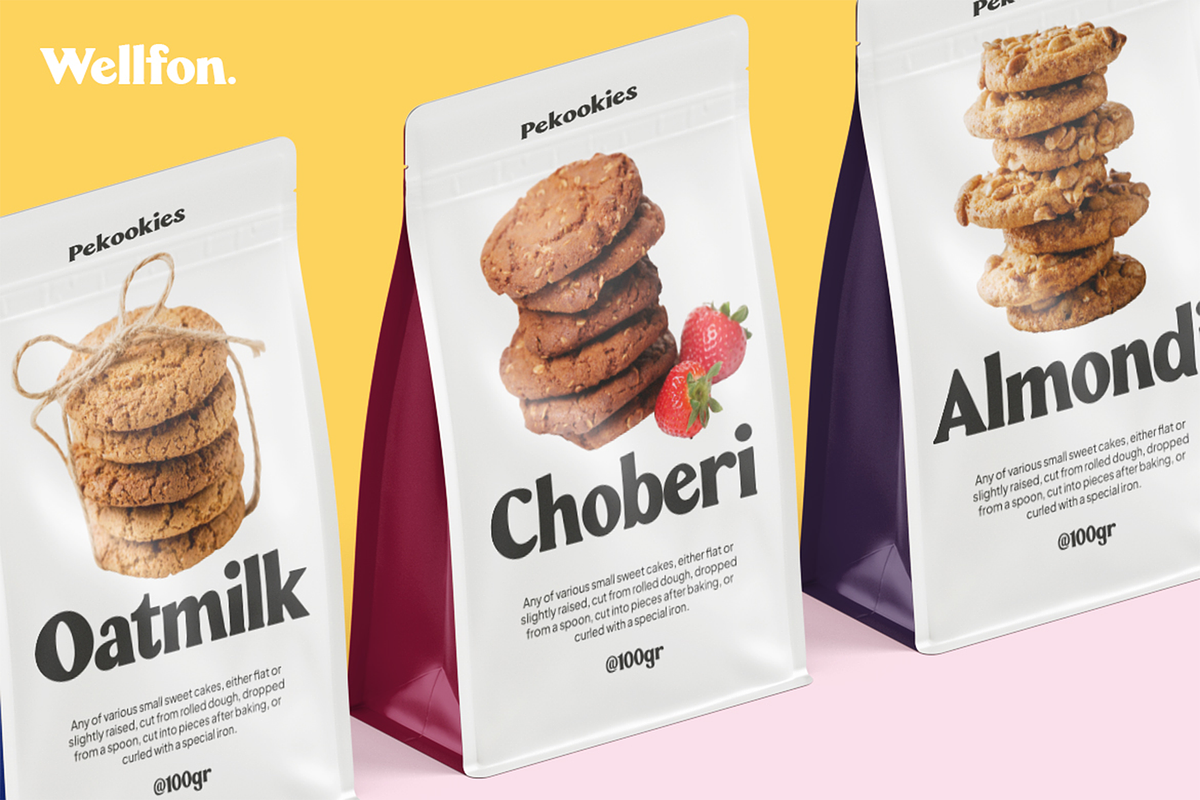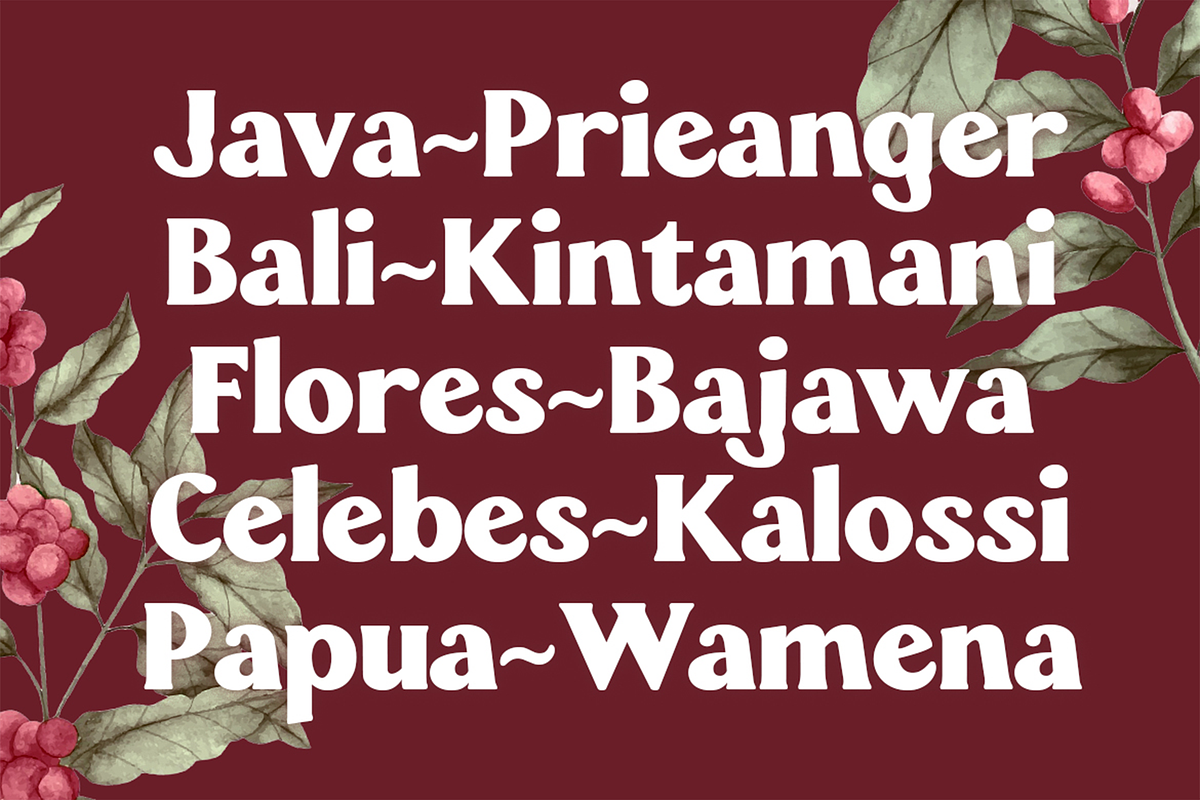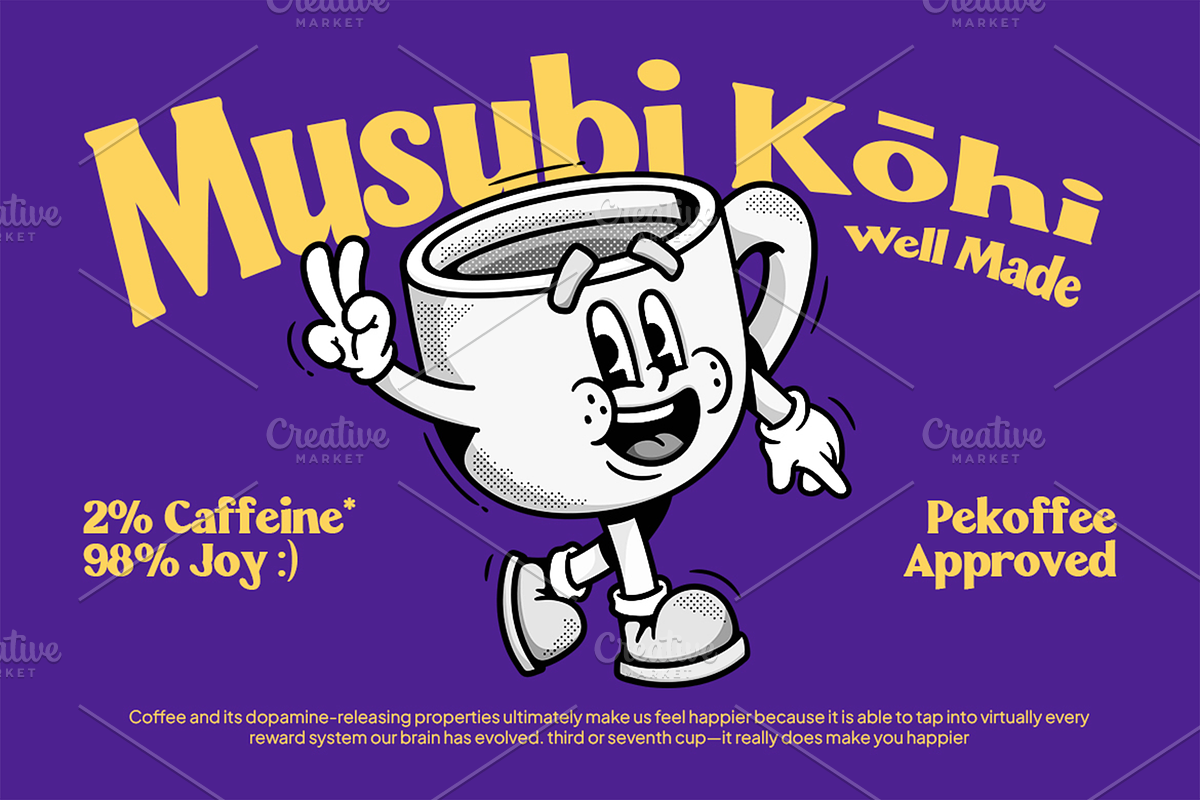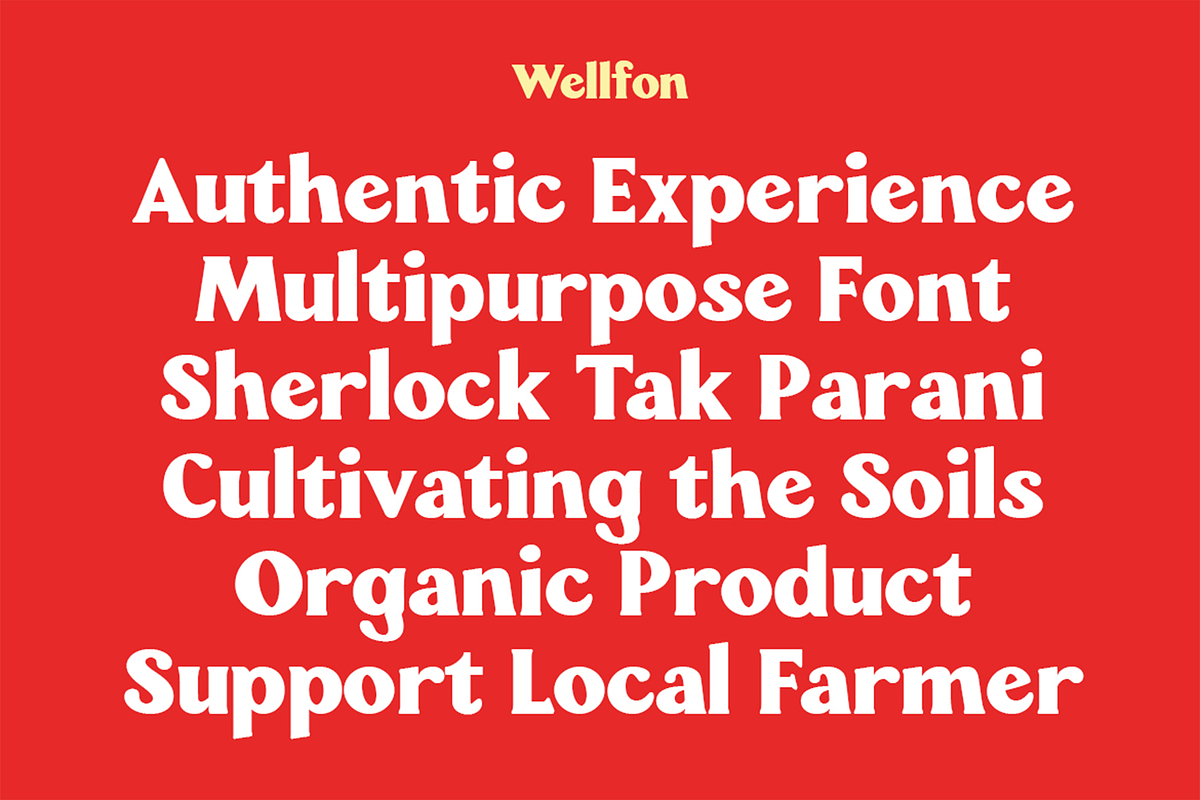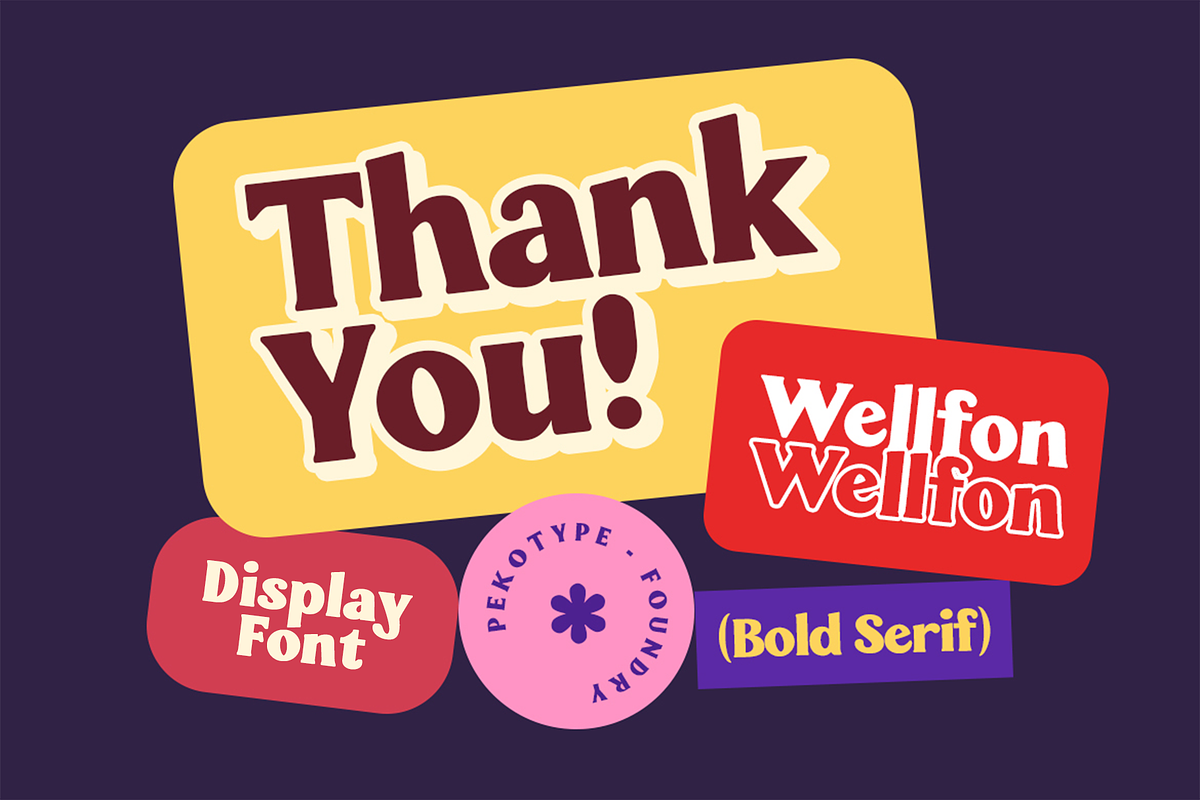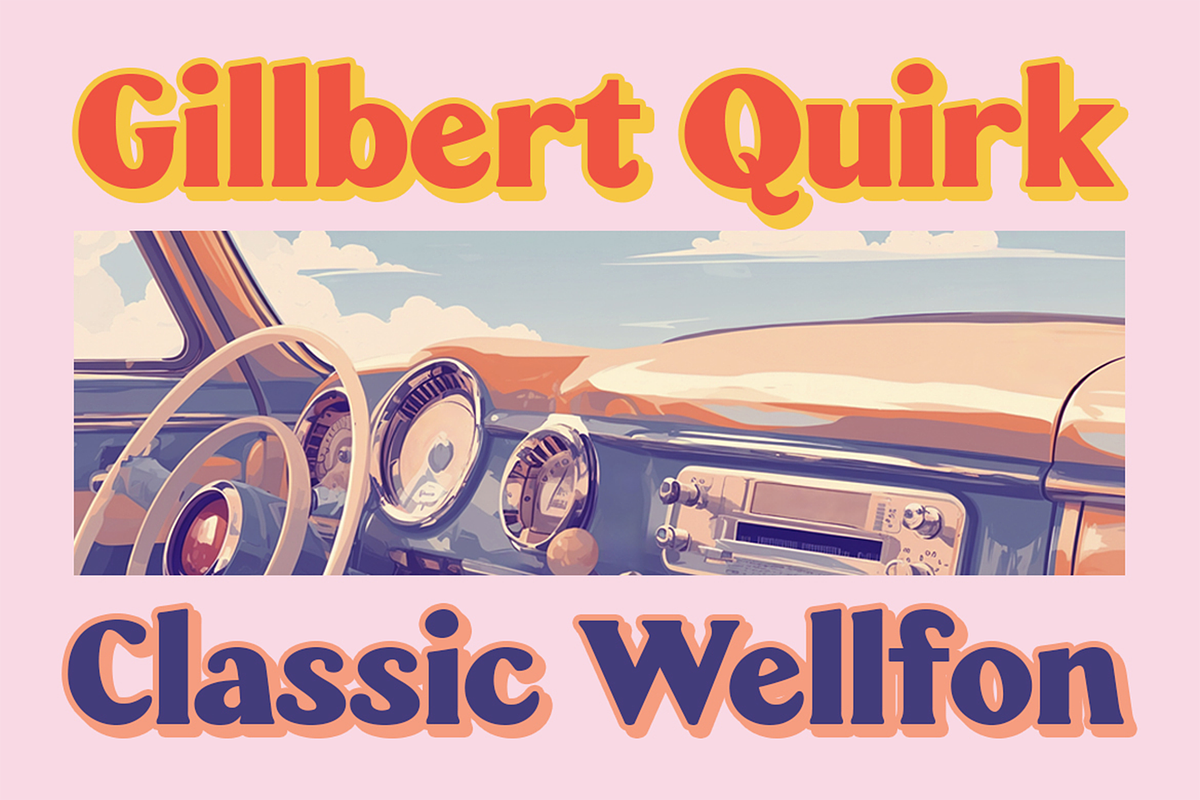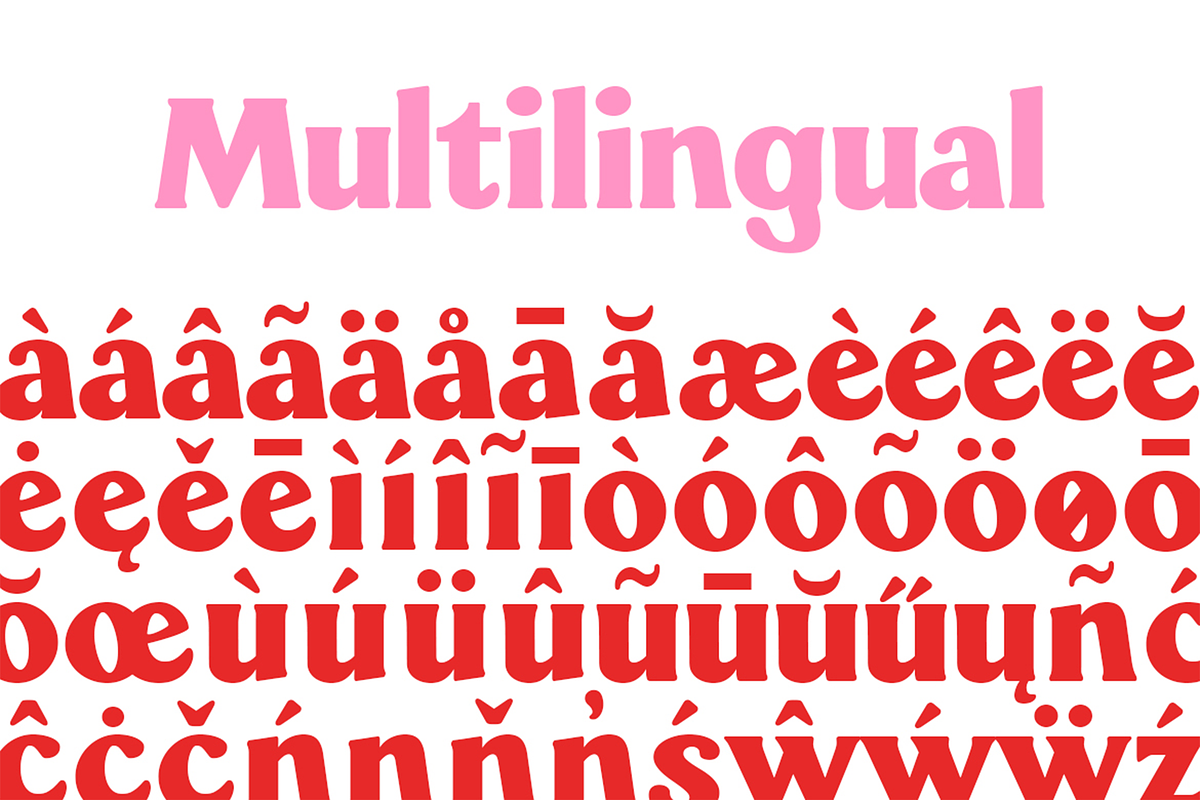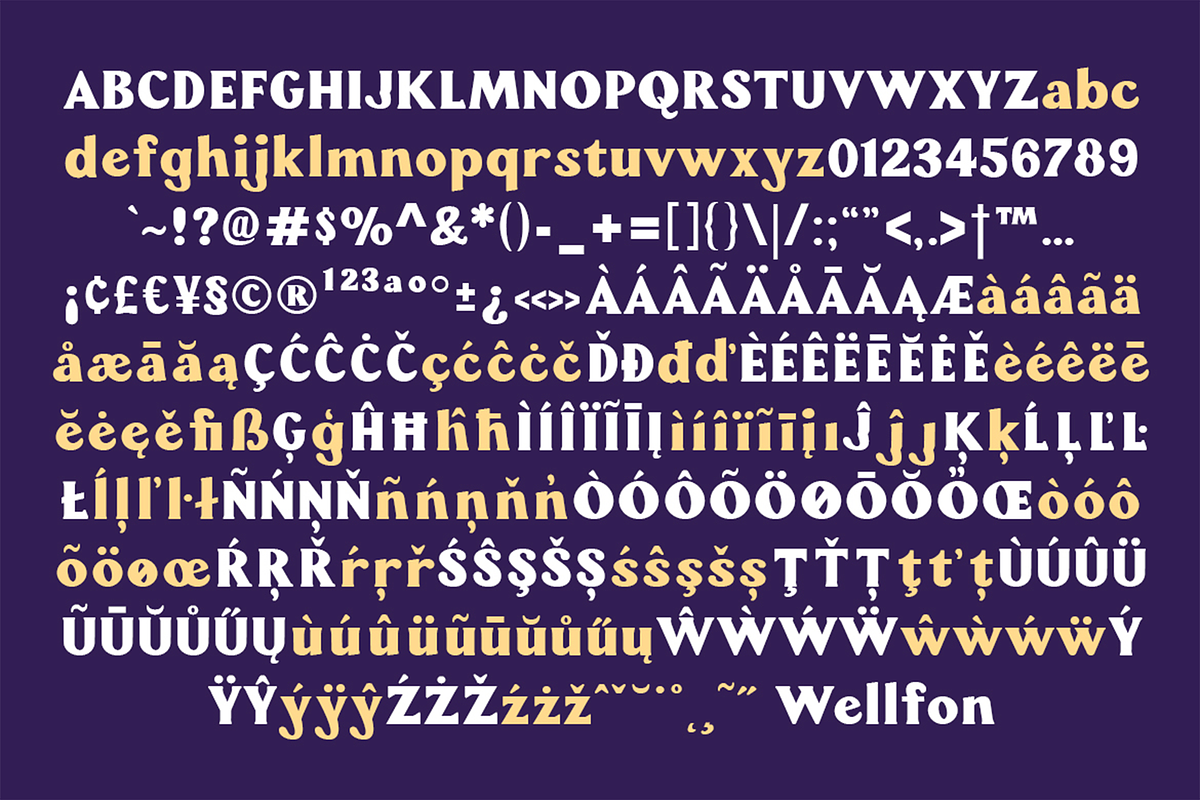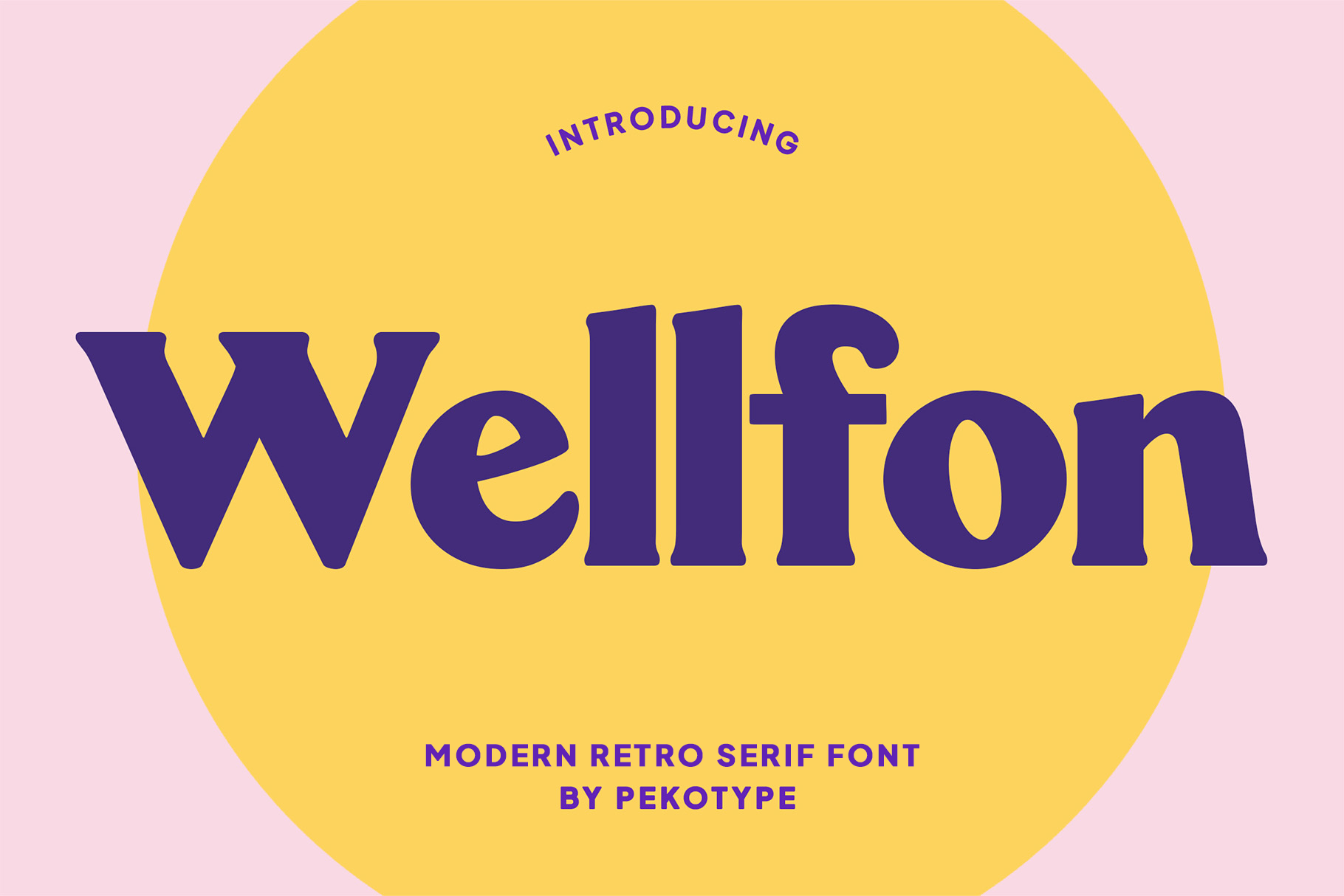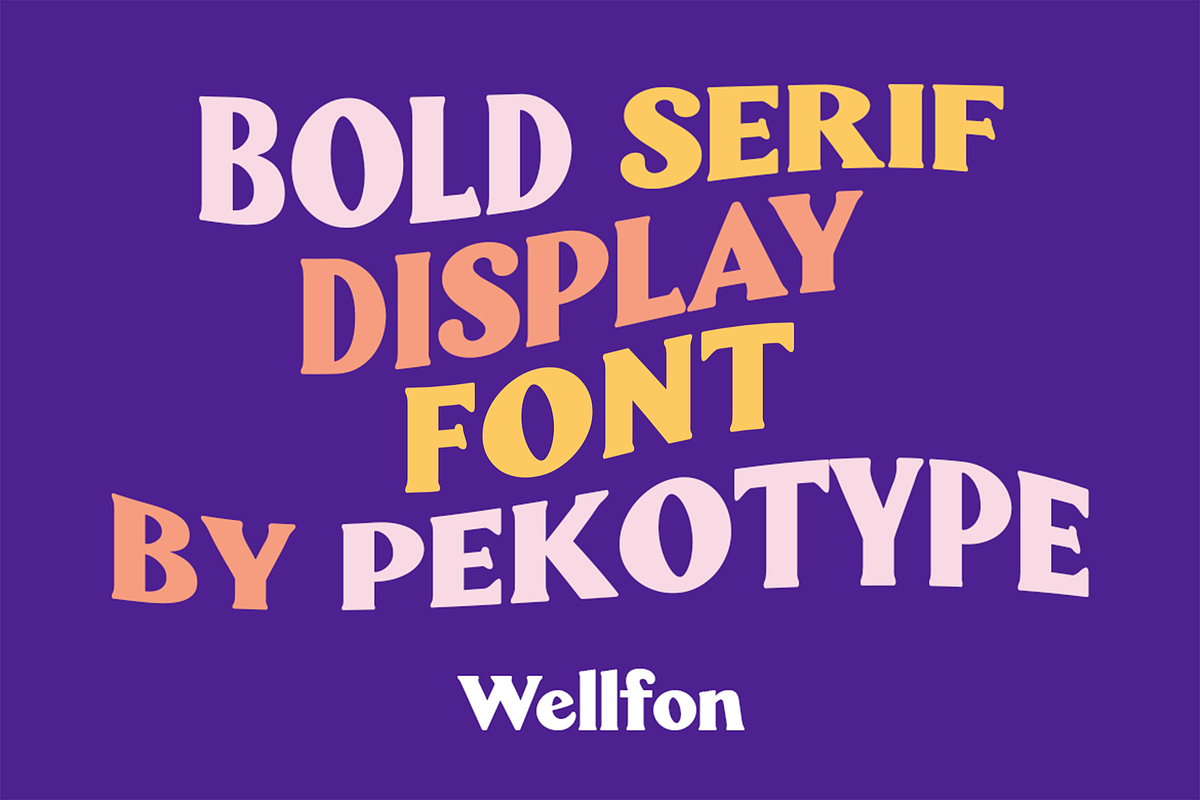
Wellfon - Modern Retro Serif Font
Introducing WELLFON – where retro charm meets bold modern style! This powerful serif font elevates your brand, logos, packaging, and more. Wellfon's unique blend of vintage curves and sleek lines brings any project a fresh, energetic vibe. Whether you're crafting a striking brand identity or adding flair to packaging, Wellfon delivers a bold, confident look that stands out. With its timeless appeal and versatile design, Wellfon is your go-to choice for making a lasting impression. Ready to take your designs to the next level? Let Wellfon do the talking!